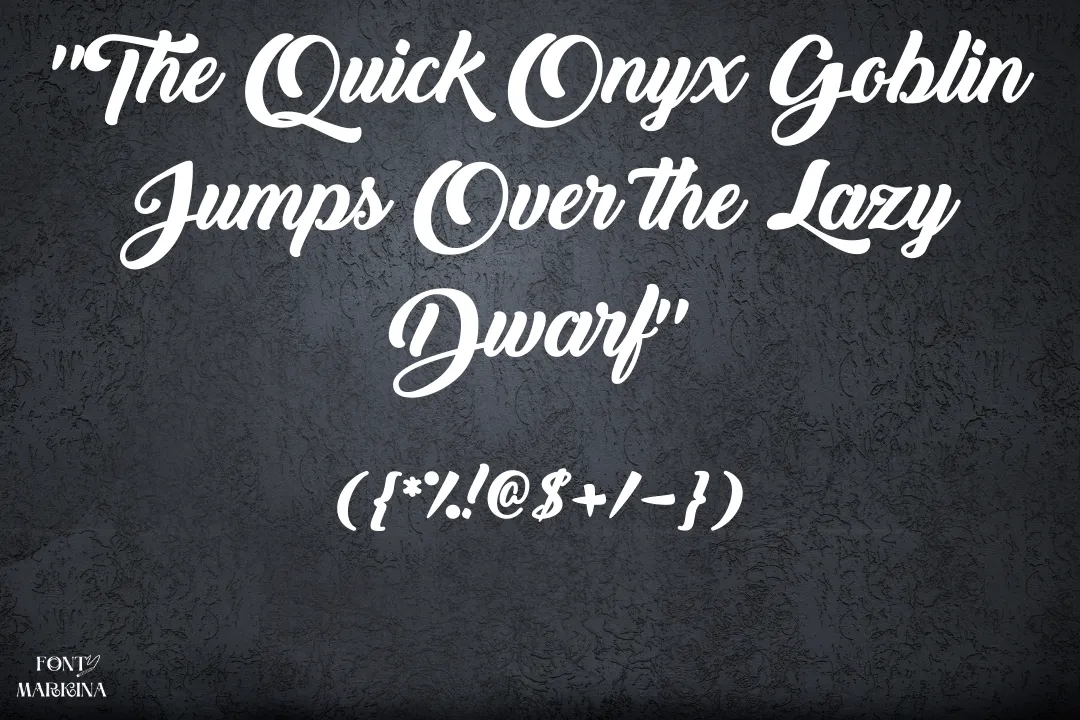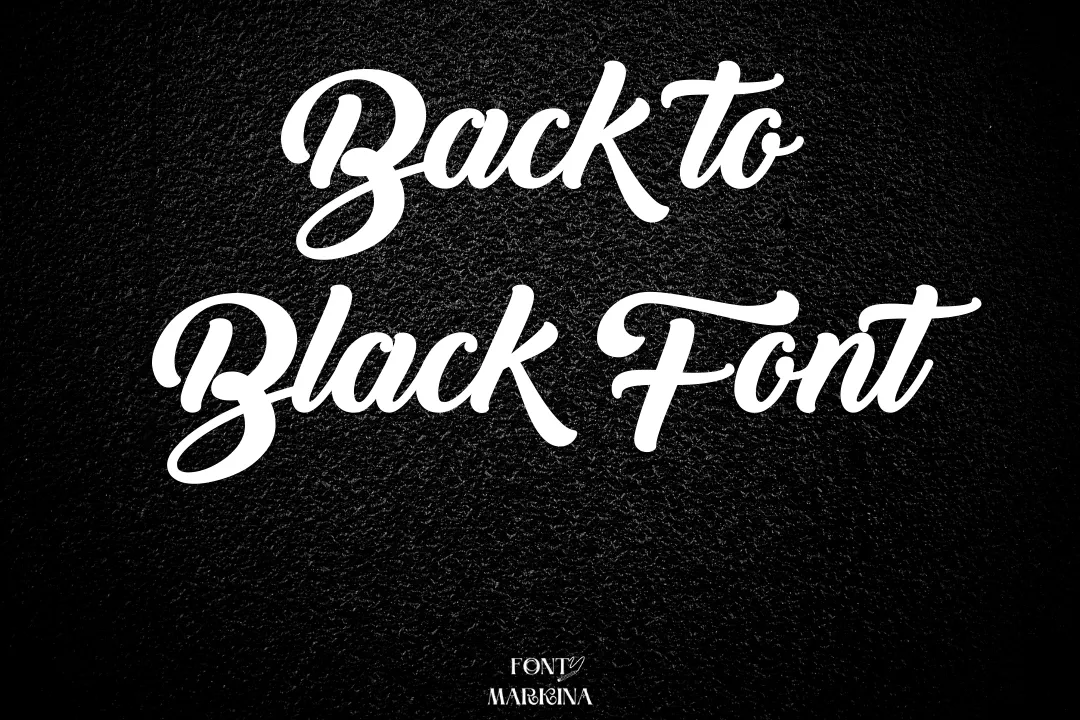
Here, we discuss a great font perfect for all your upcoming plans named Back To Black Font. This gorgeous texture lies in the script font family. This typeface was designed by Misti’s font foundry. Finally, this typography was released in 2016.
This awesome family comes in two different and classic styles Regular, and Bold. Many similar to this Demo family are available on google Fonts and this typeface is available on our website. Its similar babette font has the same look as this family.
The text generator tool of this texture is best for types of designs related to graphics. You can get wonderful results in your required tasks and functions.
Uses of Back To Black Font
All developers use this family for all of their web projects and graphics projects. You can also use this family for infographics, game development, and so on.
Different types of daily routine projects like making designs of posters, emblems, and others can be done by using Back To Black Font. This excellent typography is perfect for use in logos creation and various design stuff. For more designs, you will utilize a mona handdrawn font with the pairing of this texture.
In all higher projects like vehicle wraps, this family is commonly used. You can also use this texture for book covers and comic covers. In short, the uses of this texture are increasing in a very little period of time.
| Designer | Misti's Font |
| Style | Script |
What type of font is Back To Black Font?
This stunning typeface falls in the category of script fonts. This texture has two different styles.